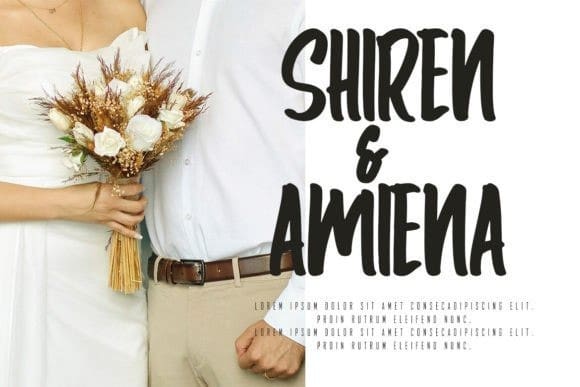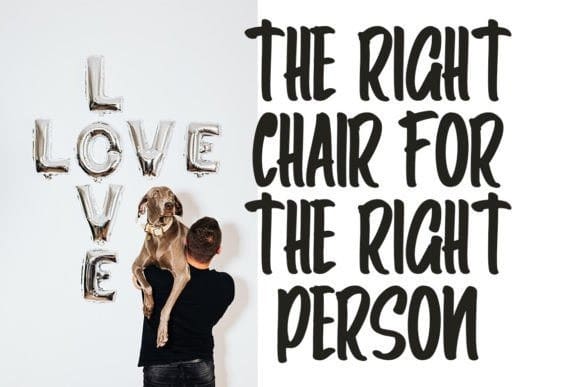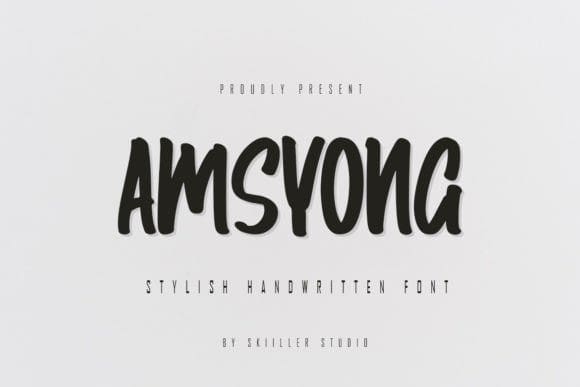
Amsyong Font
Amsyong Font is a playful and cool lovely font. This font is perfect for children themed designs, especially when combined with bright colors.